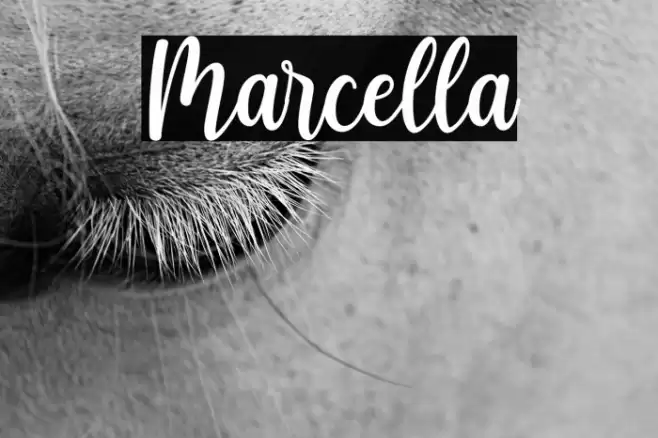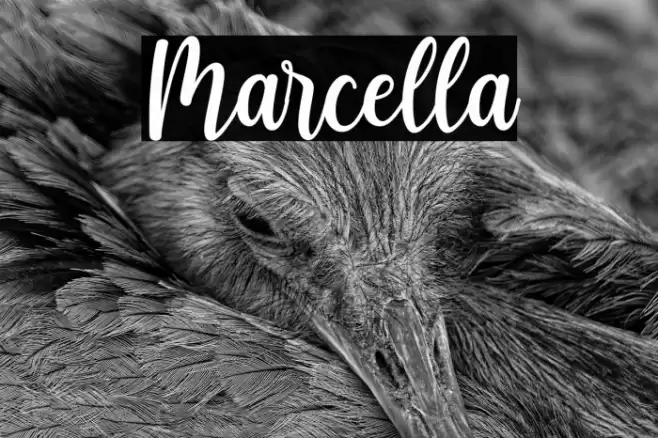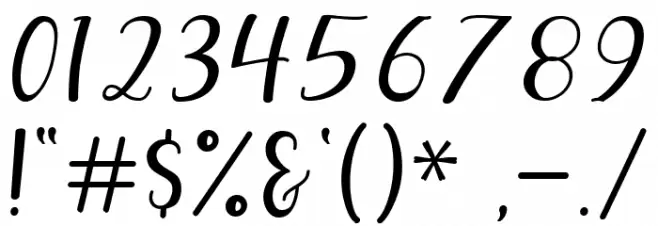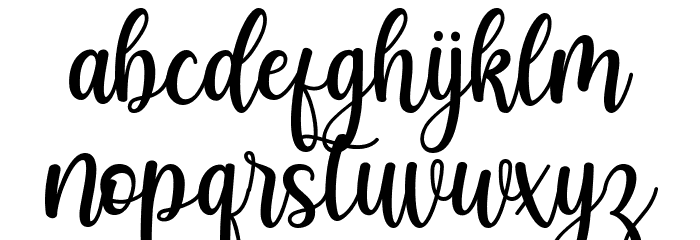
Marcella Font
Marcella Description
This font features a flowing, cursive style that combines elegance with a playful touch. The uppercase letters are characterized by smooth, sweeping curves and a consistent stroke width, giving them a graceful appearance. The lowercase letters maintain the same fluidity, with some characters featuring distinctive loops and flourishes that add a touch of whimsy. The numerals are clear and legible, matching the overall aesthetic with their rounded forms. Special characters are integrated seamlessly, maintaining the font's cohesive style. This font is perfect for projects that require a personal, handwritten feel while still maintaining readability.
A flowing, cursive font with elegant curves and playful flourishes from Regular fonts.
- Proposed Projects: Ideal for wedding invitations, greeting cards, branding, and social media graphics.
- Use Case: Logos, Invitations, Decorative text